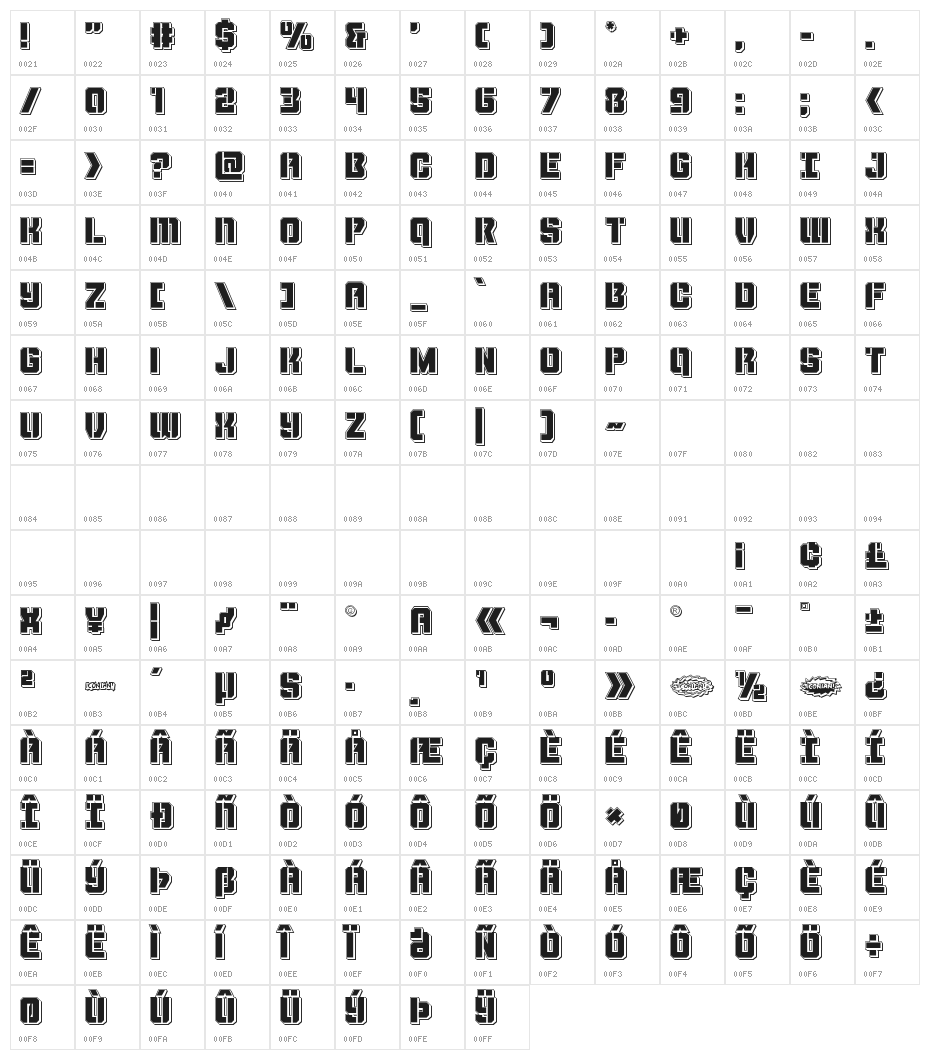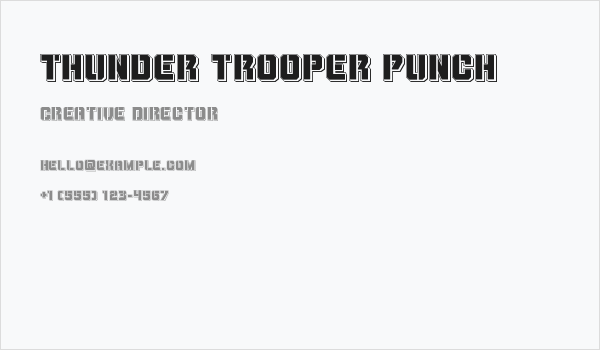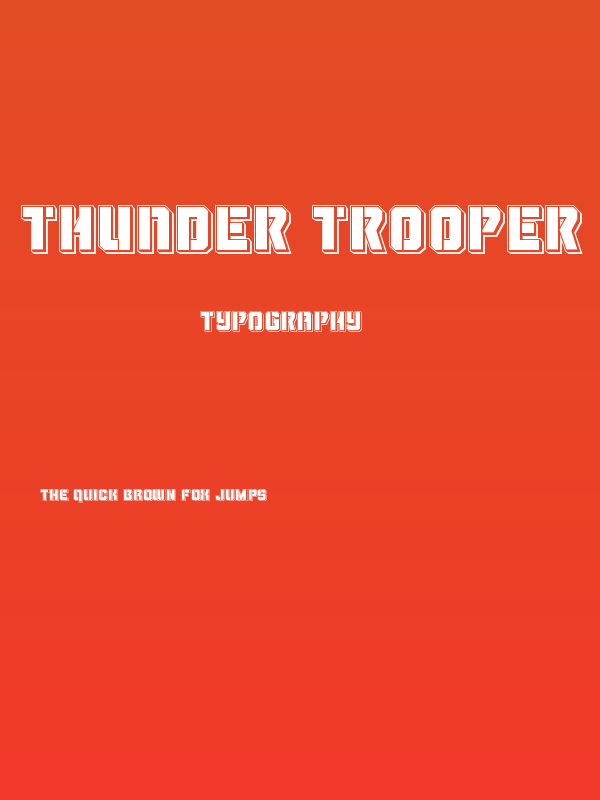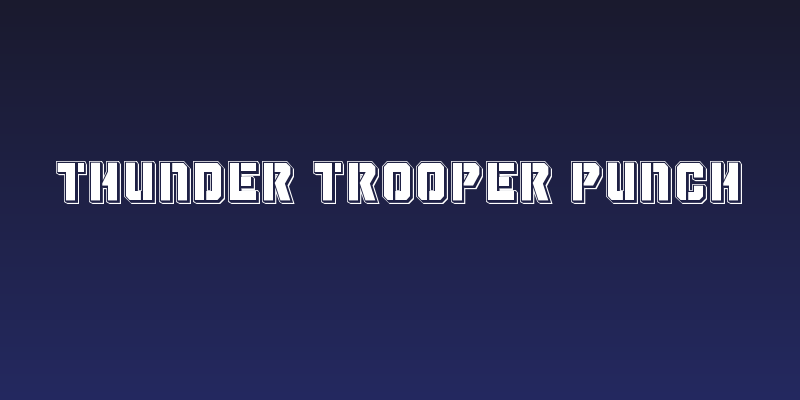
Thunder Trooper Punch Font
Thunder Trooper Punch Description
This font features a bold, geometric design with a strong, impactful presence. The characters are outlined, creating a three-dimensional effect that adds depth and visual interest. Each letter and number is crafted with sharp angles and straight lines, giving it a futuristic and industrial feel. The font's style is reminiscent of sci-fi and action themes, making it ideal for projects that require a bold statement. The uppercase and lowercase letters maintain a consistent style, ensuring uniformity across different text applications. The special characters are designed to match the overall aesthetic, providing a cohesive look.
| Overall Style | Futuristic, Industrial |
| Proposed Projects | Ideal for sci-fi posters, video game titles, action movie graphics, and branding for tech companies. |